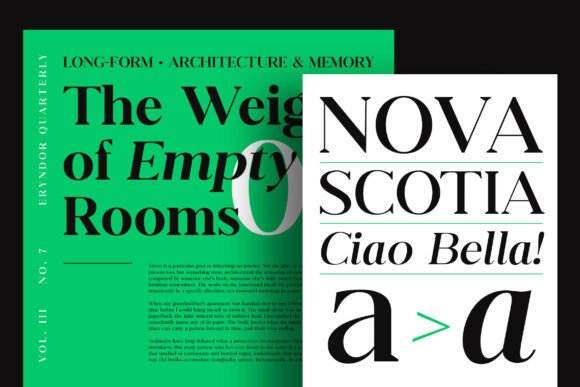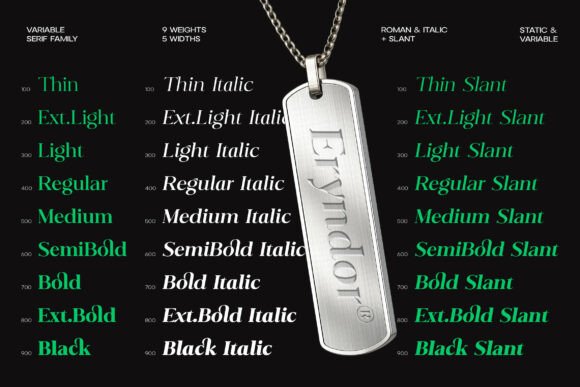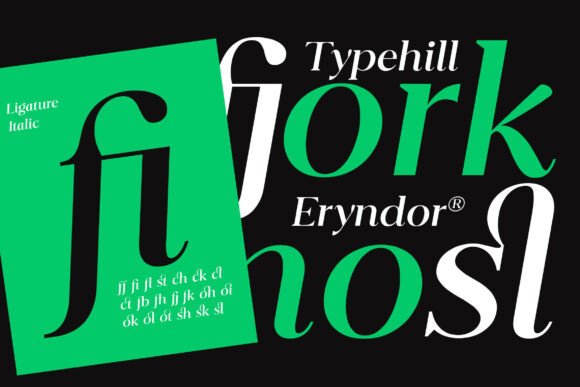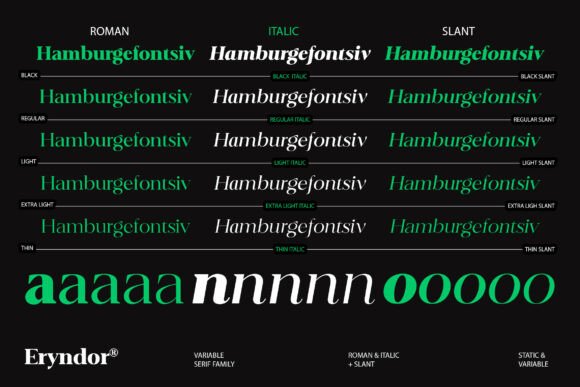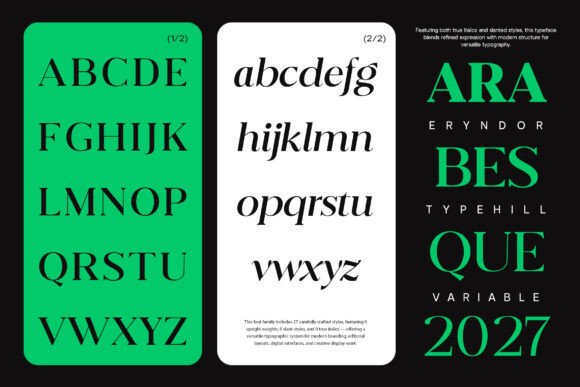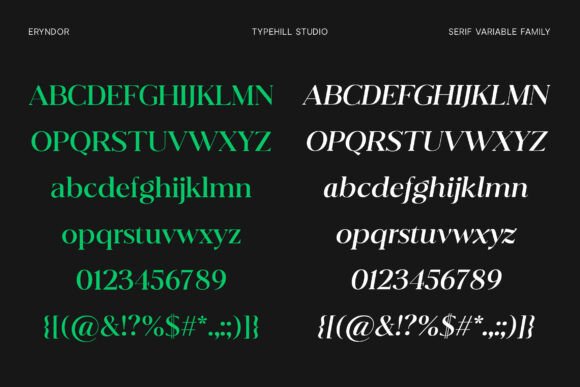
Introducing Eryndor Font: A Modern Variable Serif Family for Sophisticated Designs
In the world of typography, a font can make all the difference in creating a lasting impression. Eryndor Font is a modern variable serif family that embodies refined elegance and strong contemporary character, making it an ideal choice for designers and crafters seeking to elevate their luxury branding, editorial layouts, fashion campaigns, premium packaging, and cinematic typography.
Precision-Designed for Versatility
Eryndor is designed with precision and versatility in mind, delivering sophisticated letterforms, smooth curves, and striking contrast. This font family is carefully crafted to provide a wide range of applications, from delicate thin weights to commanding bold styles, ensuring that every character maintains clarity, rhythm, and visual harmony.
Exceptional Flexibility with 27 Styles
Eryndor offers an impressive 27 carefully crafted styles, including Roman, Italic, and Slant variations. This extensive range of styles provides designers with exceptional flexibility for both digital and print design, empowering them to create expressive and highly polished compositions with ease.
Variable System for Seamless Weight Transitions
Eryndor’s variable system allows for seamless weight transitions and dynamic typographic control. This feature enables designers to experiment with different weights and styles, creating a cohesive visual identity that adapts to various design applications.
Timeless Serif Aesthetic for Elegant Designs
Eryndor brings a timeless serif aesthetic to the world of modern typography. Its classic yet contemporary design makes it suitable for elegant headlines, stylish logos, modern magazines, and upscale visual identities. Whether used for print or digital media, Eryndor exudes sophistication and refinement.
Ideal for Luxury Branding and Editorial Layouts
Eryndor’s refined elegance and strong contemporary character make it an ideal choice for luxury branding and editorial layouts. Its sophisticated letterforms and smooth curves evoke a sense of high-end quality, perfect for designers seeking to create luxurious and sophisticated visual identities.
Perfect for Fashion Campaigns and Premium Packaging
Eryndor’s striking contrast and exceptional flexibility make it a perfect fit for fashion campaigns and premium packaging. Its ability to adapt to various design applications ensures that designers can create visually stunning compositions that capture the essence of high-end fashion and luxury brands.
Cinematic Typography and Beyond
Eryndor’s versatility extends to cinematic typography, where its bold styles and dynamic typographic control make it an excellent choice for movie titles, subtitles, and other cinematic applications. Additionally, its elegant designs make it suitable for a wide range of applications, from wedding stationery to corporate branding.
Key Features of Eryndor Font
- Modern variable serif family
- 27 carefully crafted styles, including Roman, Italic, and Slant variations
- Exceptional flexibility for digital and print design
- Variable system for seamless weight transitions and dynamic typographic control
- Timeless serif aesthetic
- Ideal for luxury branding, editorial layouts, fashion campaigns, premium packaging, and cinematic typography
Eryndor Font is a powerful tool for designers and crafters seeking to create sophisticated and elegant designs. Its precision-designed letterforms, exceptional flexibility, and timeless serif aesthetic make it an ideal choice for a wide range of applications. Whether used for luxury branding, editorial layouts, fashion campaigns, or cinematic typography, Eryndor is sure to elevate your designs to new heights.